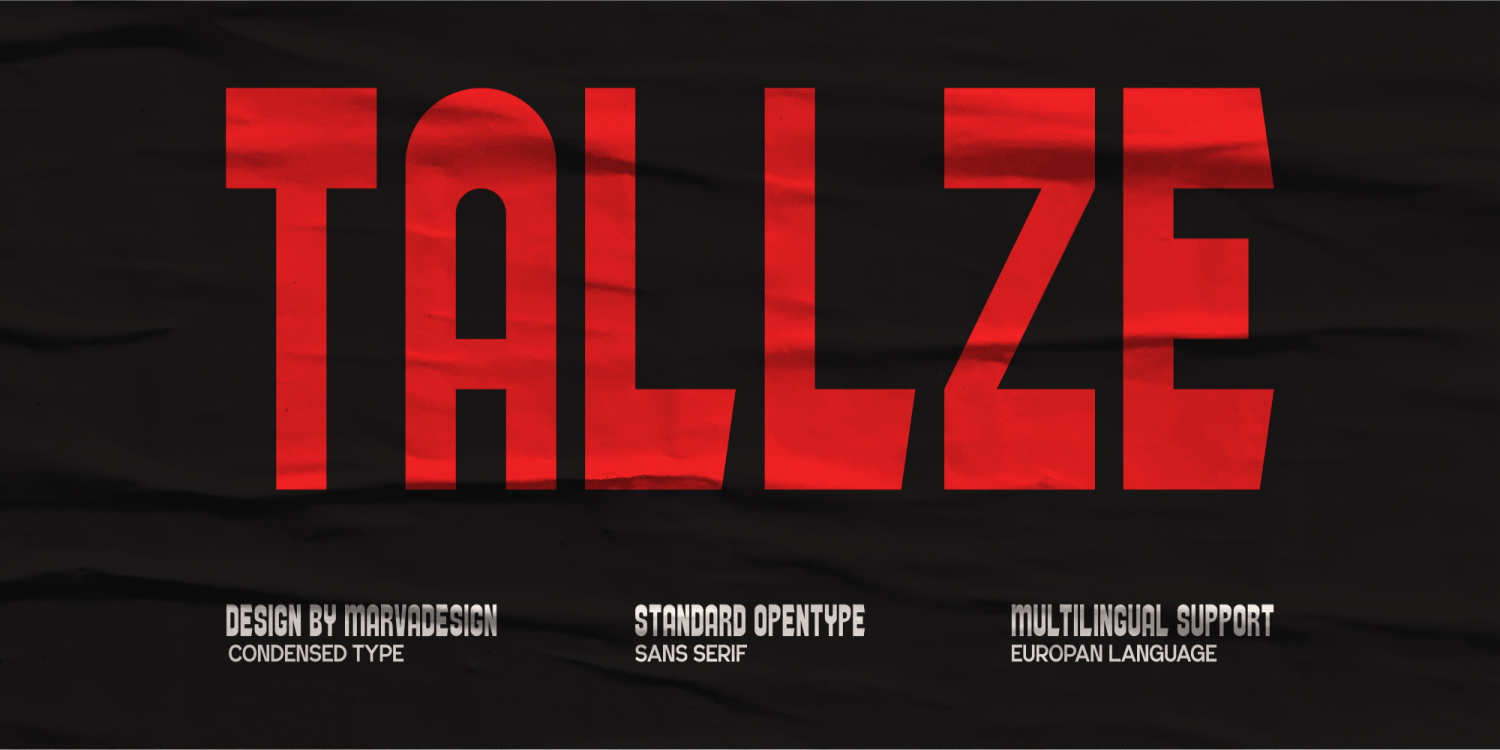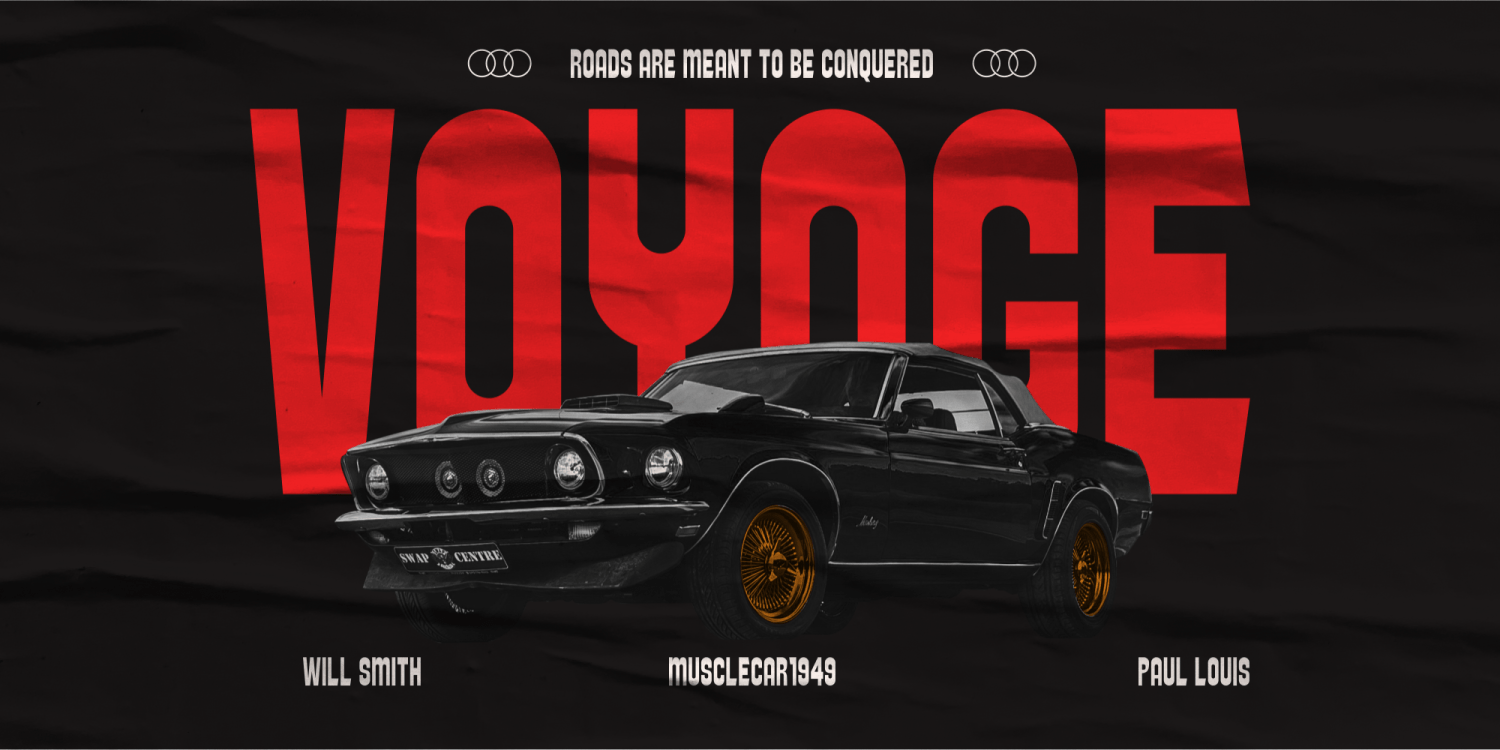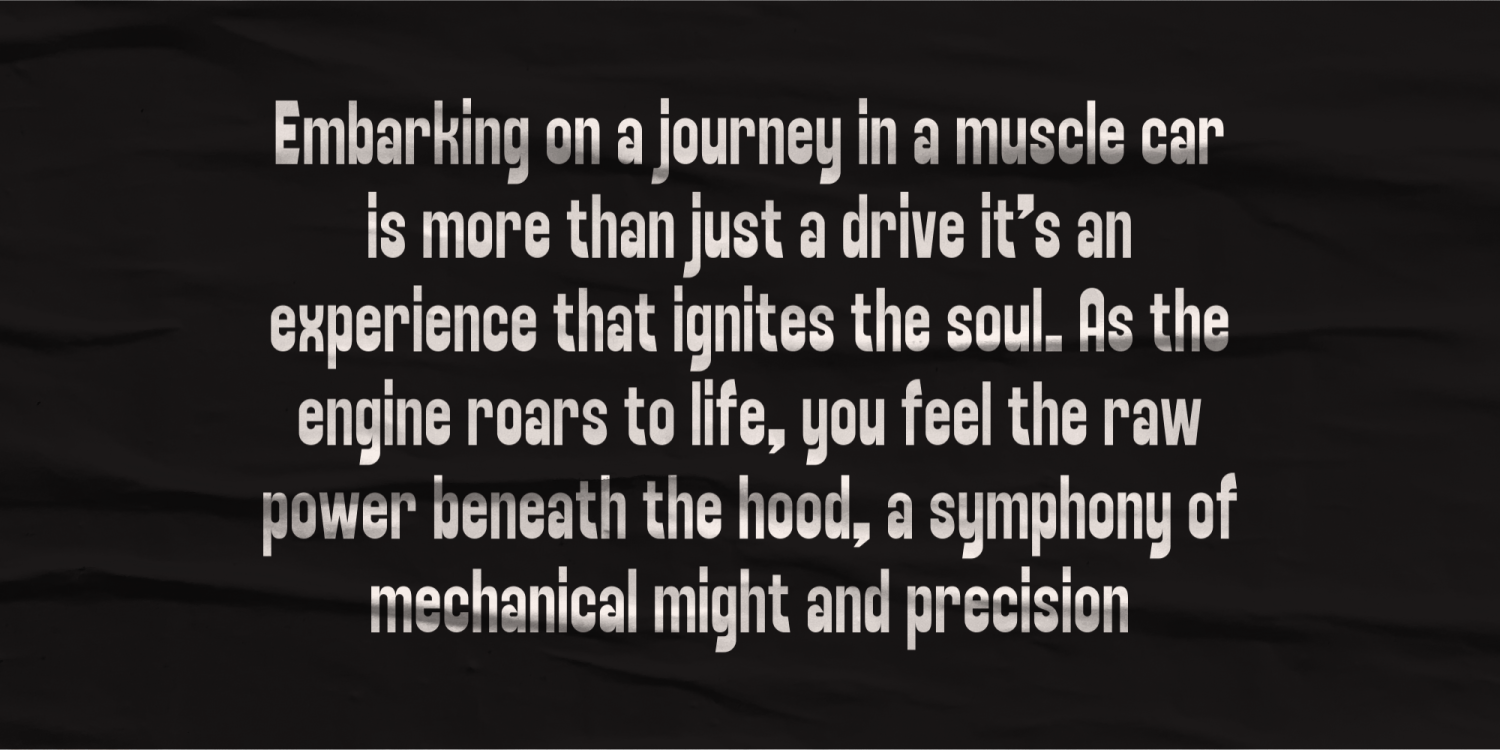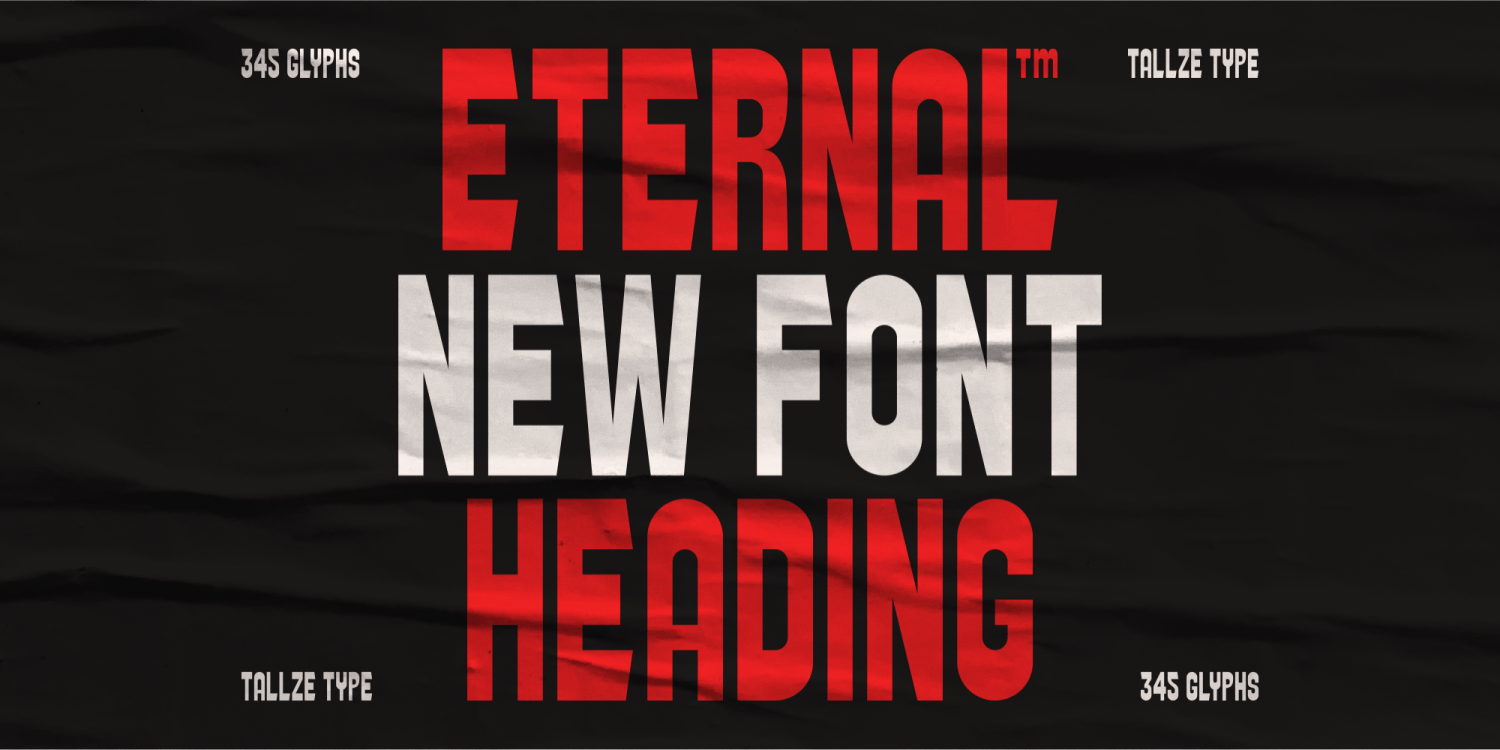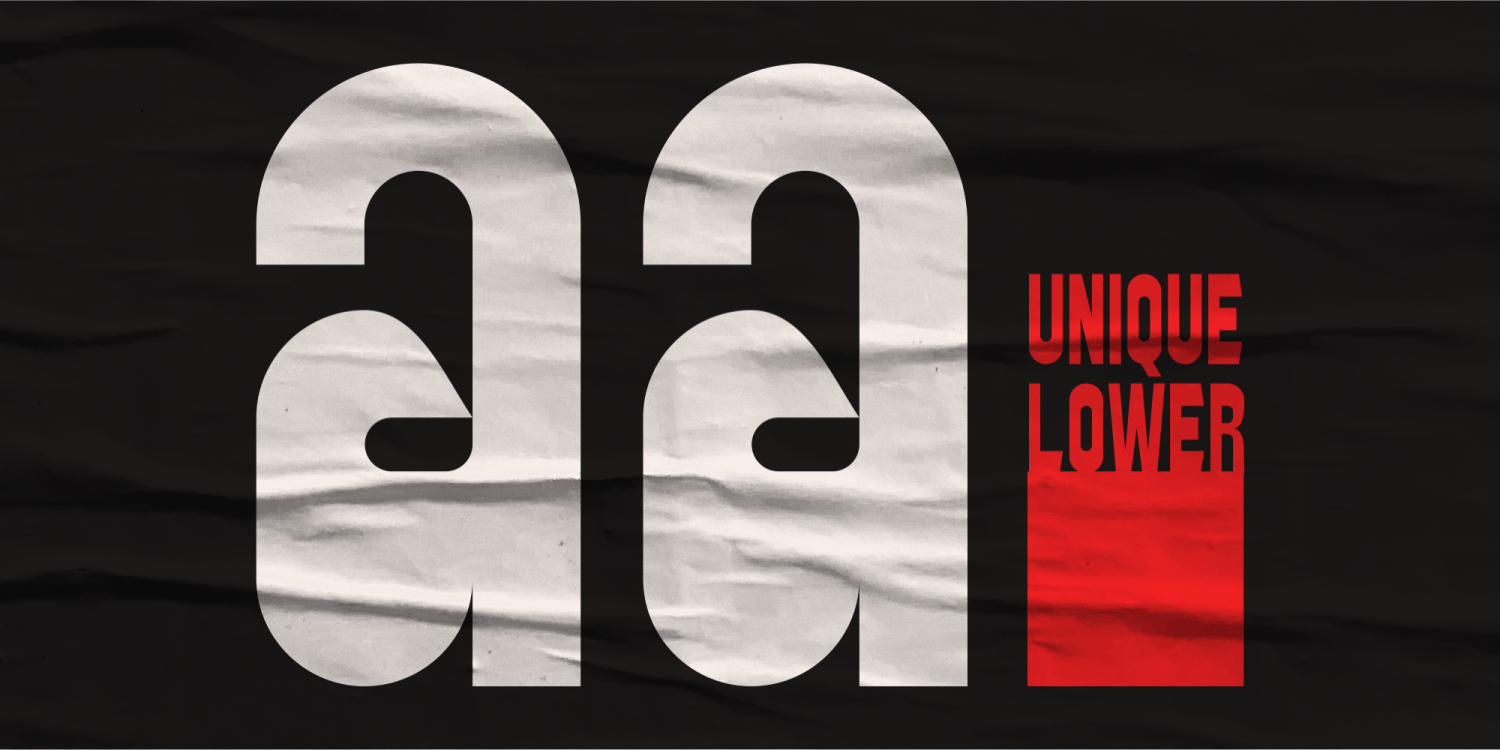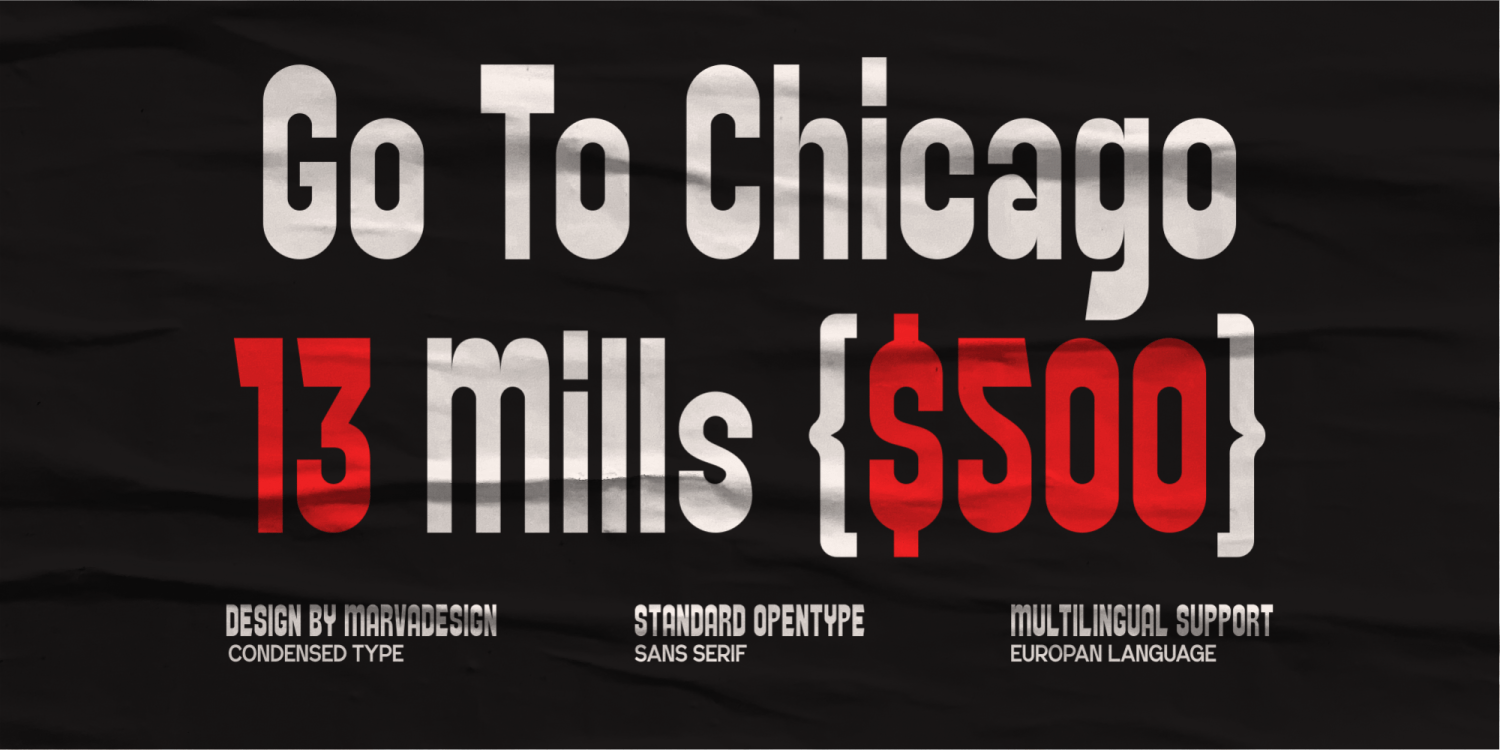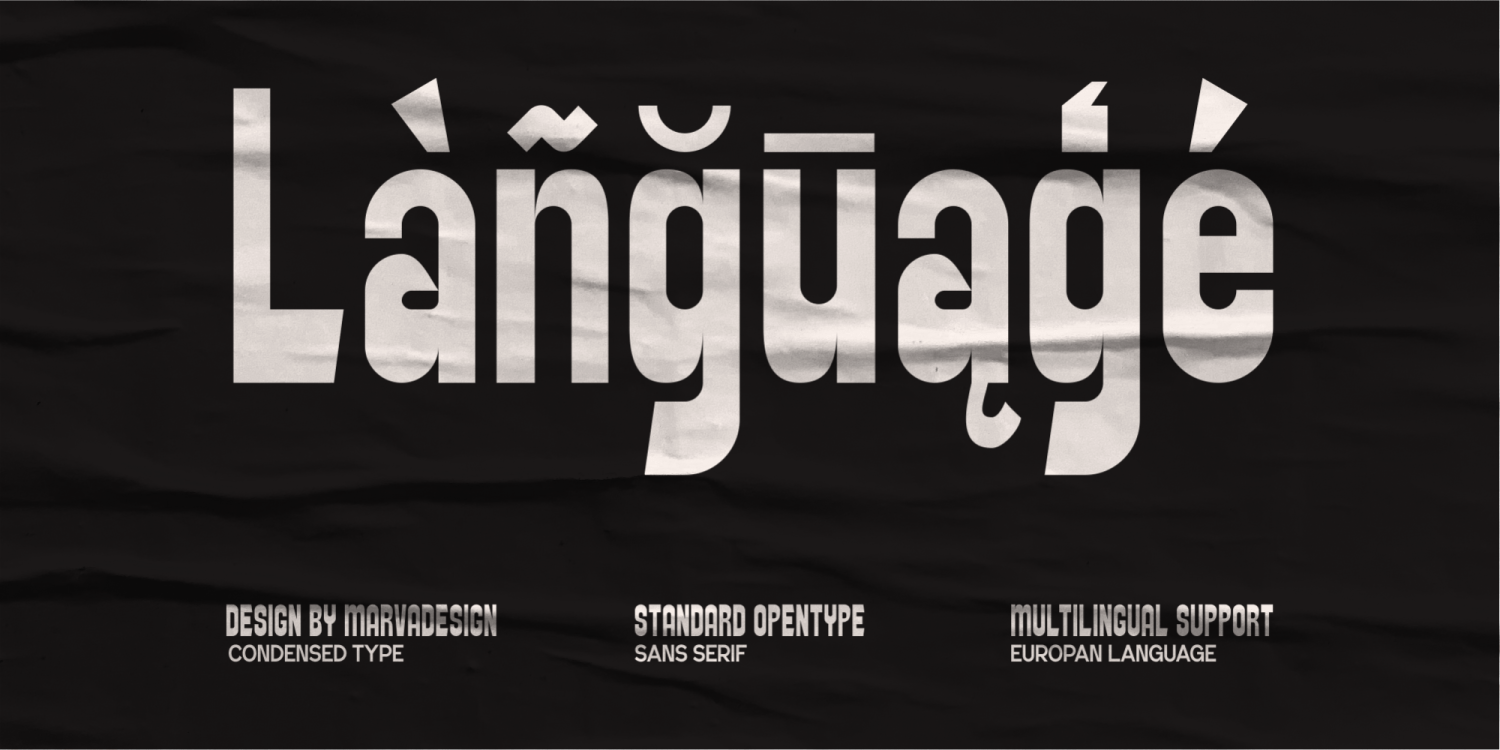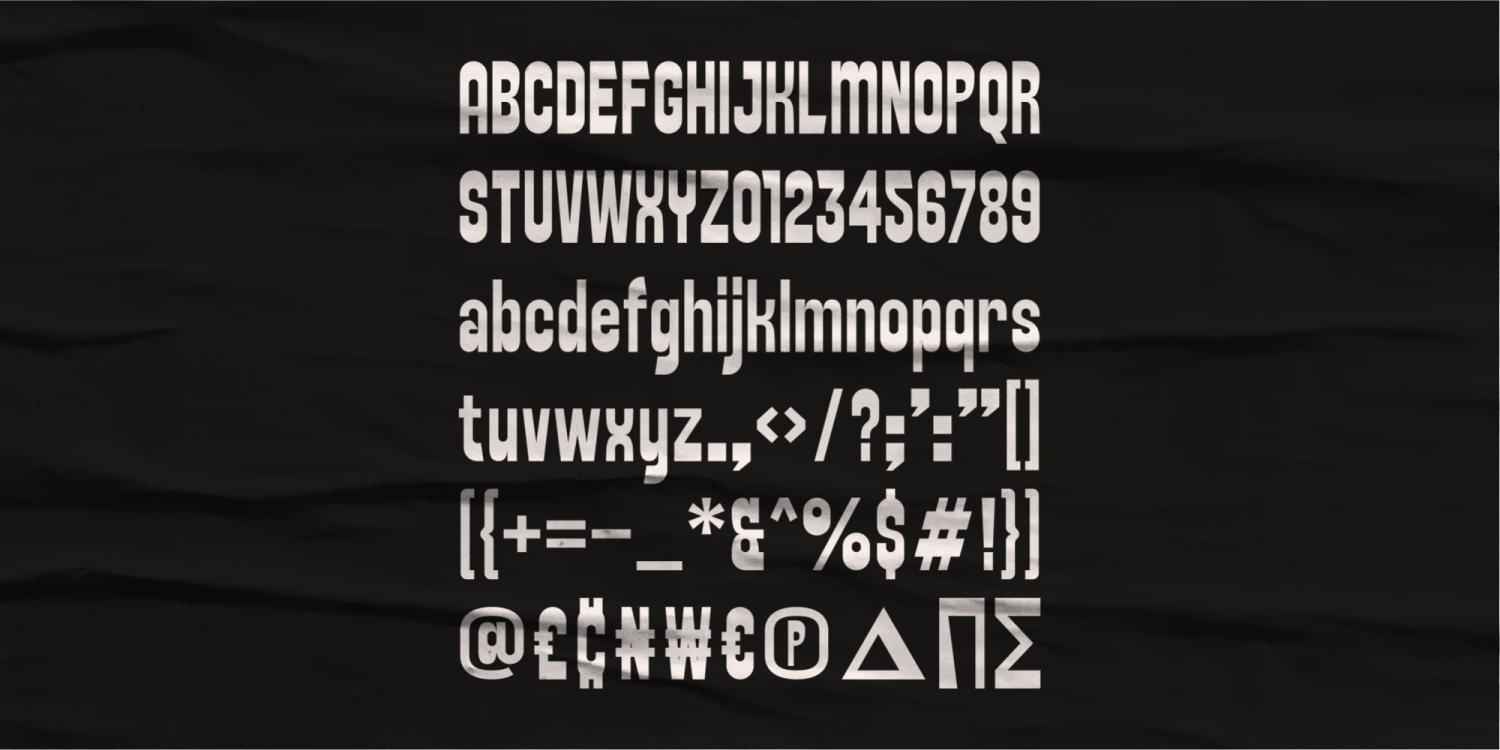
Tallze
Font Family by Marvadesign
Introducing Tallze is a distinctive Condensed Display Sans typeface that commands attention with its robust and modern design. Characterized by its bold weight, Tallze features pronounced thickness at both the top and bottom of each letter, giving it a striking and impactful presence. This unique design element ensures that each character stands out, making Tallze ideal for headlines, posters, and any application where visual impact is paramount. The condensed nature of Tallze allows for efficient use of space, making it a perfect choice for settings where horizontal space is limited yet a bold statement is necessary. Despite its condensed width, the font maintains excellent legibility, thanks to its clear and well-defined letterforms. One of the standout features of Tallze is the individualistic character of each glyph. Each letter possesses unique traits that add a touch of personality and flair to the text. Whether it's the slight curves, the angular cuts, or the subtle nuances in each stroke, Tallze brings a level of artistry and craftsmanship that sets it apart from other typefaces.